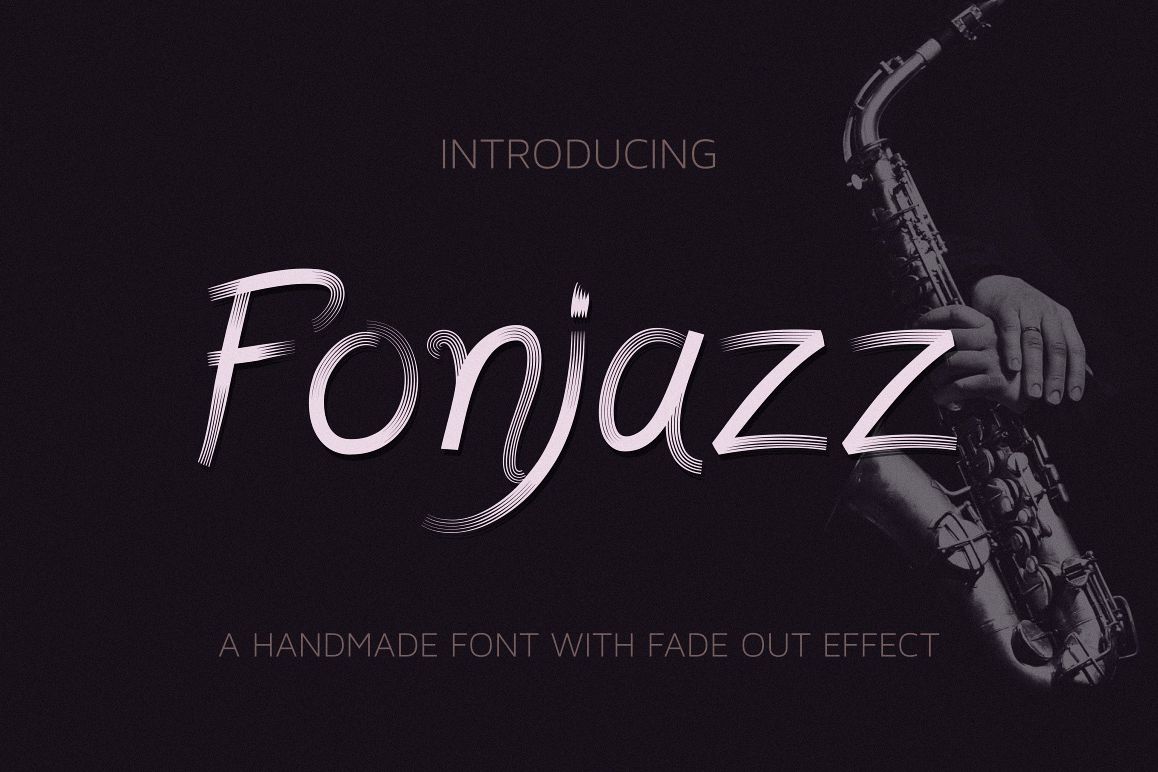
Fonjazz
Fonjazz is a handmade font with fade out effect. Irregular baseline make this font feels more natural and personal. Thin lines at the end of the font intentionally given for visual effect where the font looks faded out.
Fonjazz comes with lowercase and uppercase letters, punctuation, symbols, and some OpenType features that allow you to create great designs. OTF and TTF are available.